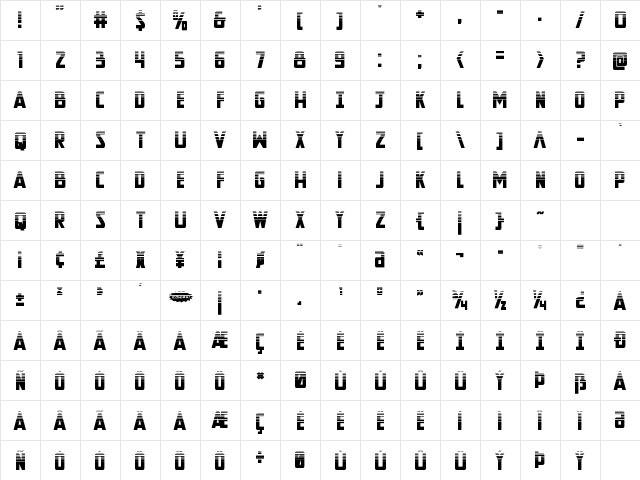
New Comic Title Halftone Regular Free Font
New Comic Title Halftone Regular
New Comic Title Halftone Family
Design Context for New Comic Title Halftone
New Comic Title Halftone has an approachable, lighthearted character - its loose, expressive forms are well-suited to children's content, casual branding, and fun-first design.
Font Pairing: Pairs well with a rounded or humanist sans for body copy, maintaining the friendly tone without relying on New Comic Title Halftone to carry extended reading.
Pro Tip: Use New Comic Title Halftone at larger display sizes where its expressive character can land. Pair with a clean, simple sans for body copy to maintain readability.